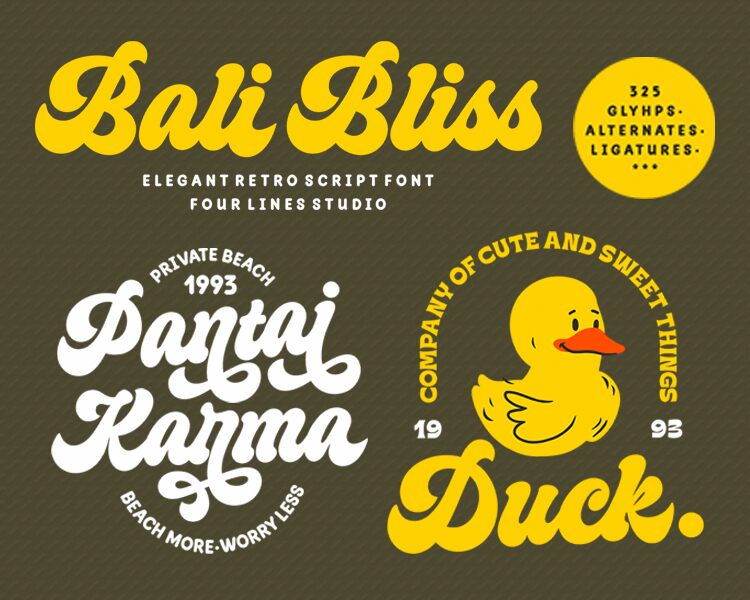
Bali Bliss font by Four Lines is a free old-school font with a decorative design, smooth flow, and casual elegance. Nostalgic and classic, it has hints of dynamism, friendliness, and an inviting tone that doesn’t overpower the message it wants to display. This font displays a certain level of creativity and consistency which reads as a unified whole with no letter overpowering the rest of the text.